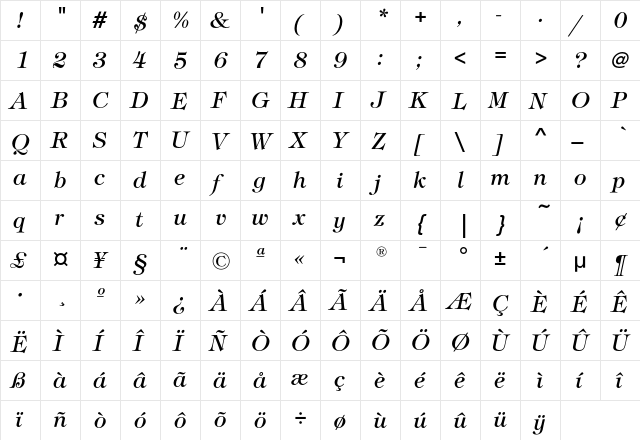
TiffanyEF-MediumItalic Regular Font Preview
TiffanyEF-MediumItalic Regular
Design Context for TiffanyEF-MediumItalic Typeface
TiffanyEF-MediumItalic offers clean, dependable letterforms without strong stylistic allegiance, making it a practical choice for designers who need flexibility. The dynamic lean of this cut emphasises speed and emphasis in any layout.